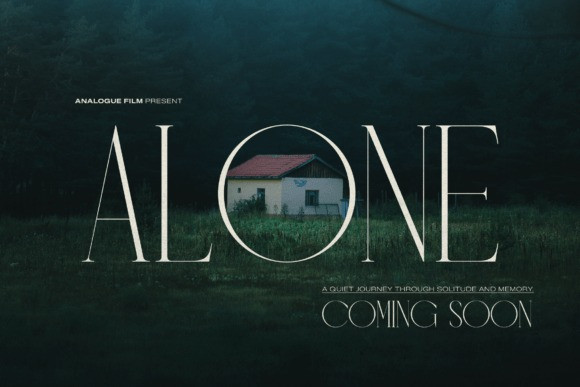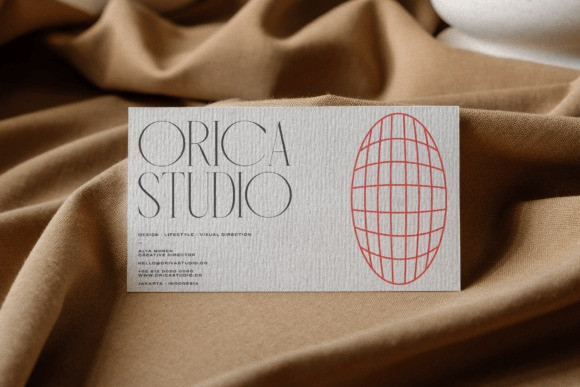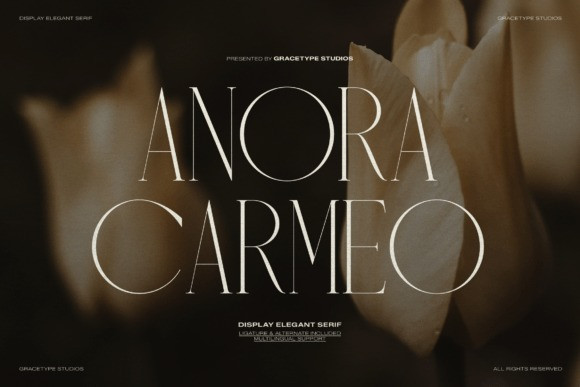
Anora Carmeo Font
Anora Carmeo Font is a technical and sophisticated display font that captures a high-end, contemporary aesthetic. This elegant serif font features exceptionally tall and narrow letterforms rendered with high-contrast character geometry, balancing razor-thin lines with bold, stable stems.
The design is characterized by an organized vertical rhythm and a stable axis, providing a sense of architectural precision and professional visual flow. This font is a premier asset for luxury editorial headers, boutique brand identities, high-fashion marketing titles, and sophisticated digital interface graphics.